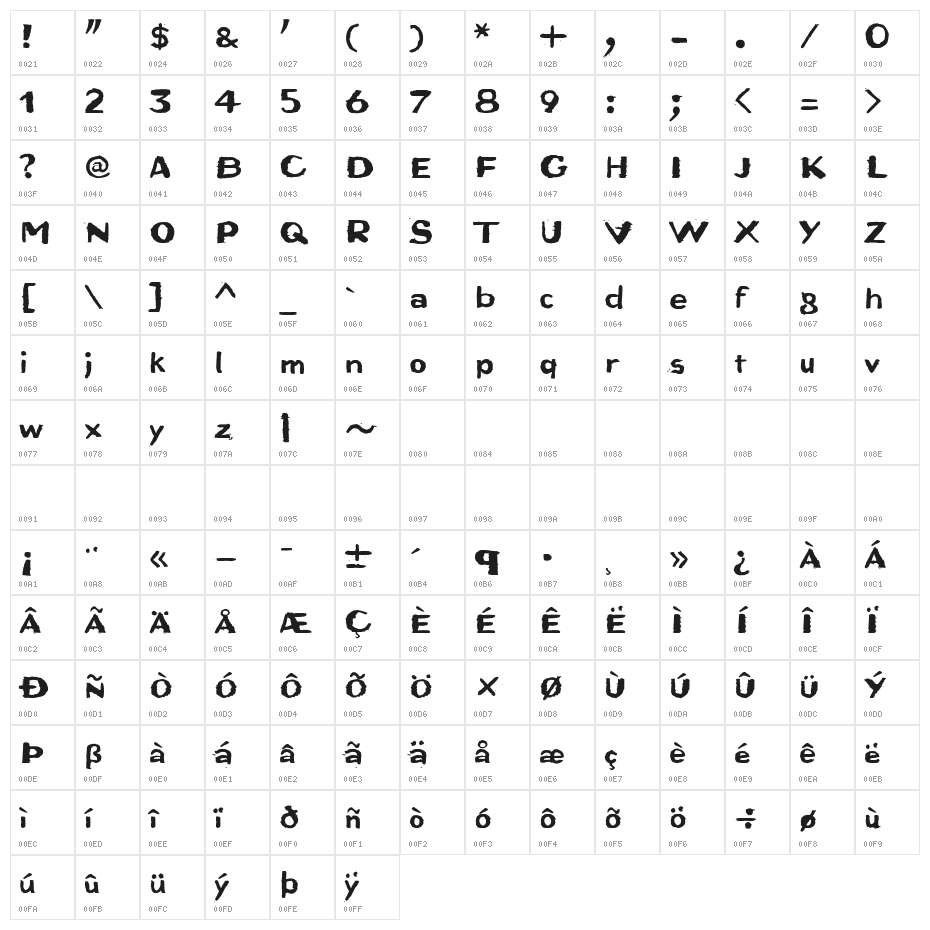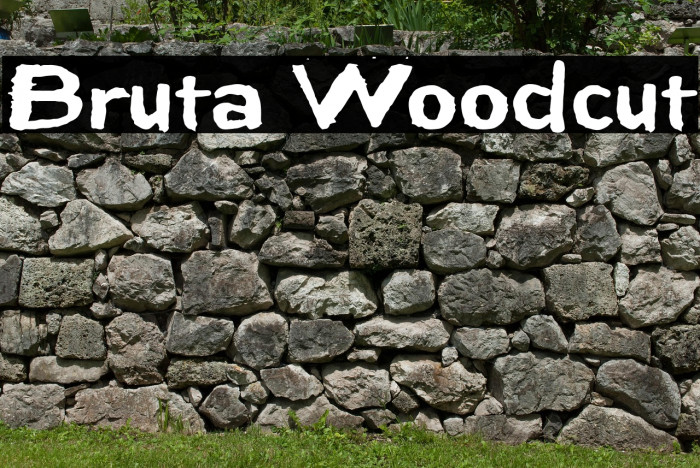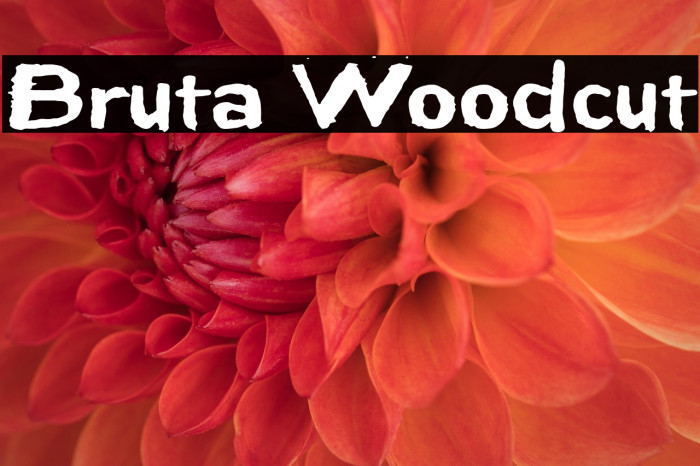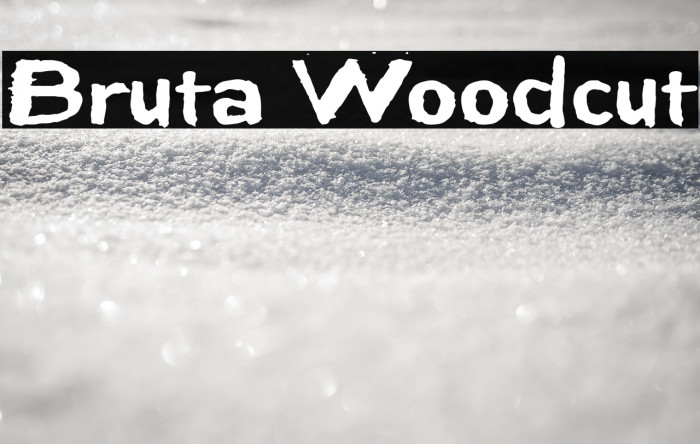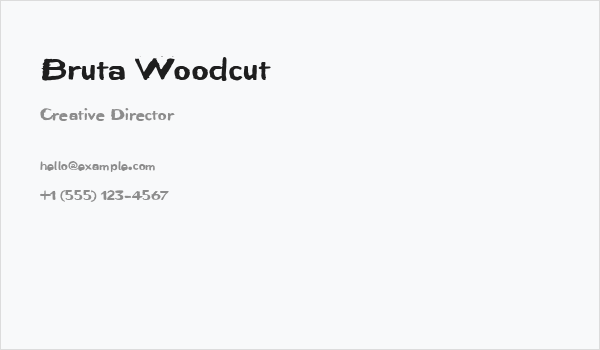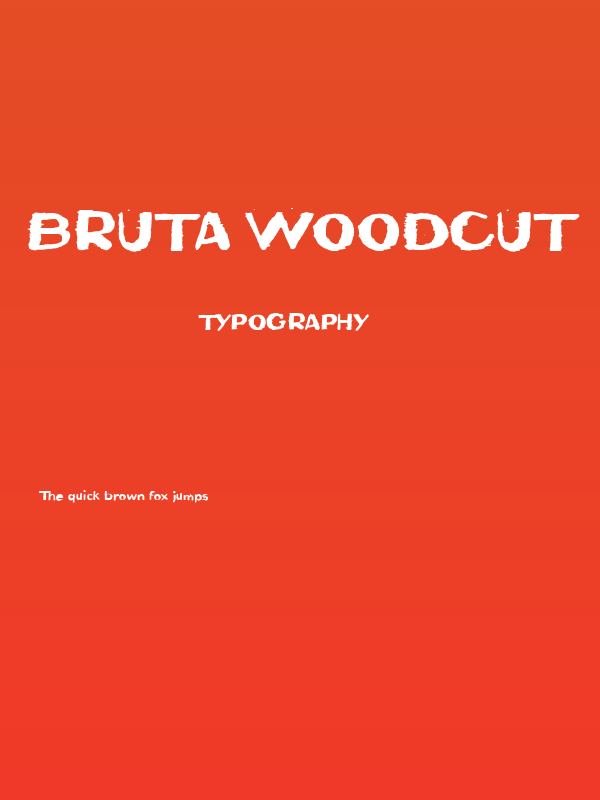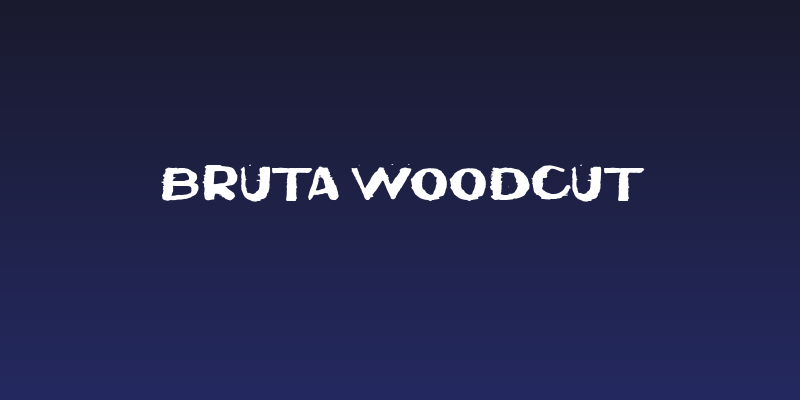
Bruta Woodcut Font
Bruta Woodcut Description
This font features a bold, hand-carved appearance reminiscent of traditional woodcut techniques. The characters have a rough, textured edge, giving them a rustic and organic feel. The uppercase and lowercase letters maintain a consistent style, with slightly irregular shapes that add to the handcrafted aesthetic. The numerals and special characters follow the same design principles, ensuring a cohesive look across all elements. The font's unique style makes it stand out, ideal for projects that require a touch of authenticity and artistic flair.
| Overall Style | Rustic, Artistic |
| Proposed Projects | Ideal for posters, book covers, branding, and any design needing a handcrafted, artistic touch. |